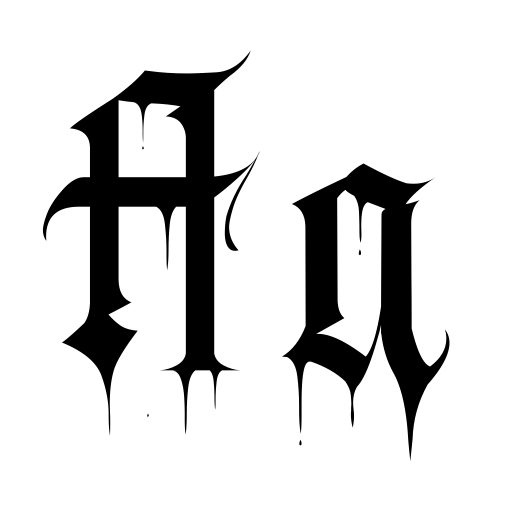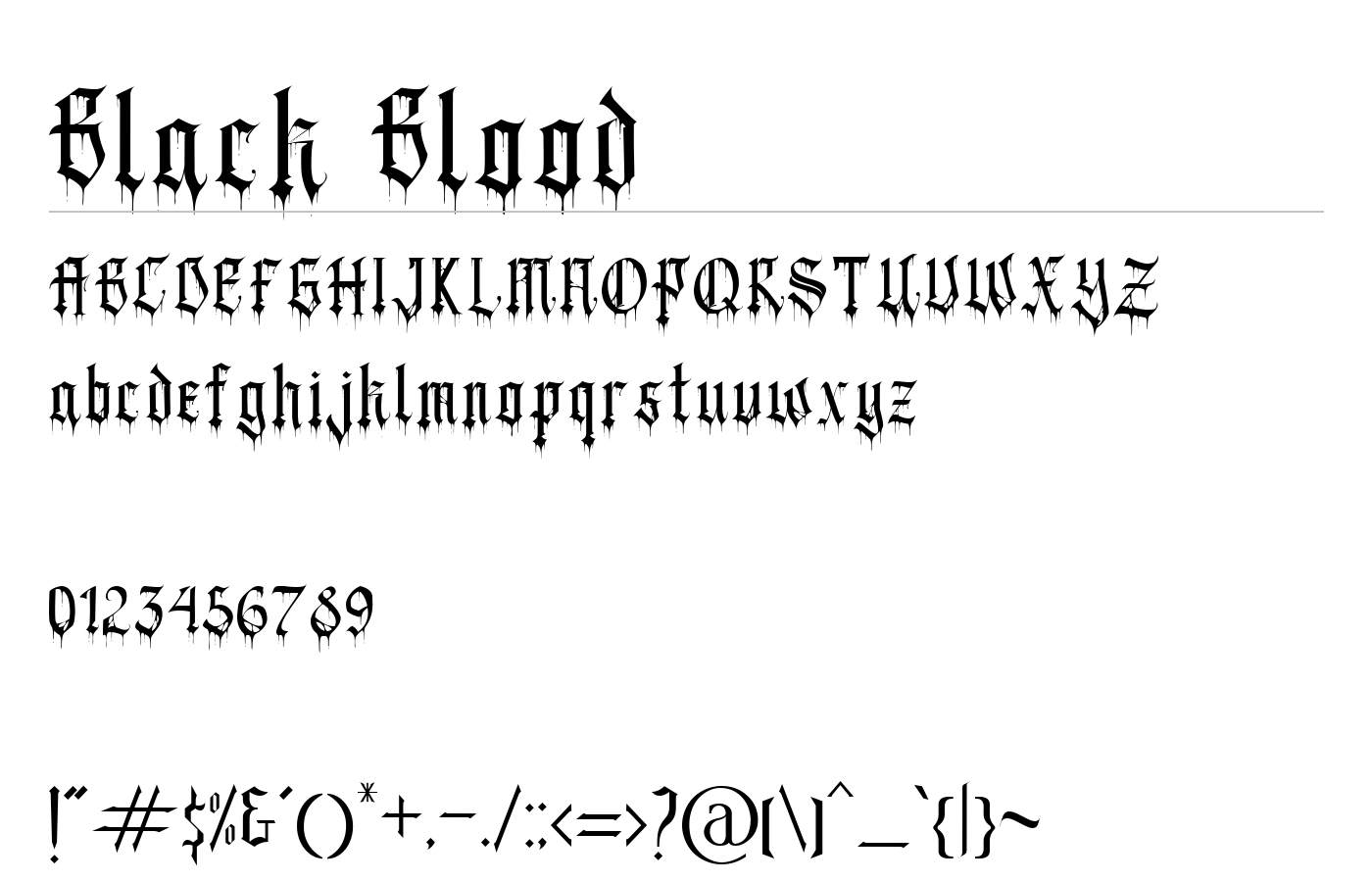
Black Blood is a dramatic blackletter-style font with sharp, heavy strokes and a dripping effect that gives it a spooky, gothic vibe. Its bold, condensed letterforms and pointed serifs make it perfect for Halloween-themed designs, horror branding, and striking headlines that need a dark, edgy personality. This font works best in decorative uses where its distinctive style can stand out without compromising readability.
Black Blood Font
About Black Blood Font